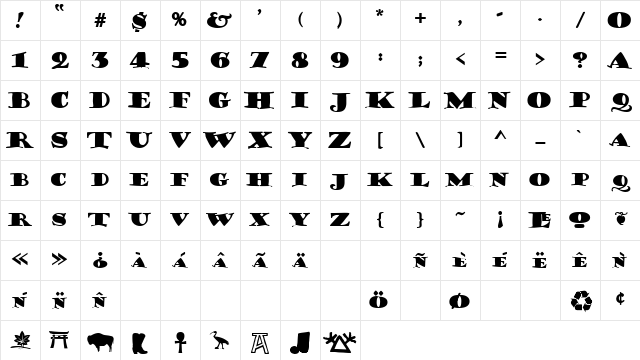
Porter Lil' Kaps Normal Free Font
Porter Lil' Kaps Normal
Porter Lil' Kaps Family
Porter Lil' Kaps Normal
Design Context for Porter Lil' Kaps
Porter Lil' Kaps is a composed and adaptable typeface that performs quietly and consistently across a wide range of design contexts.